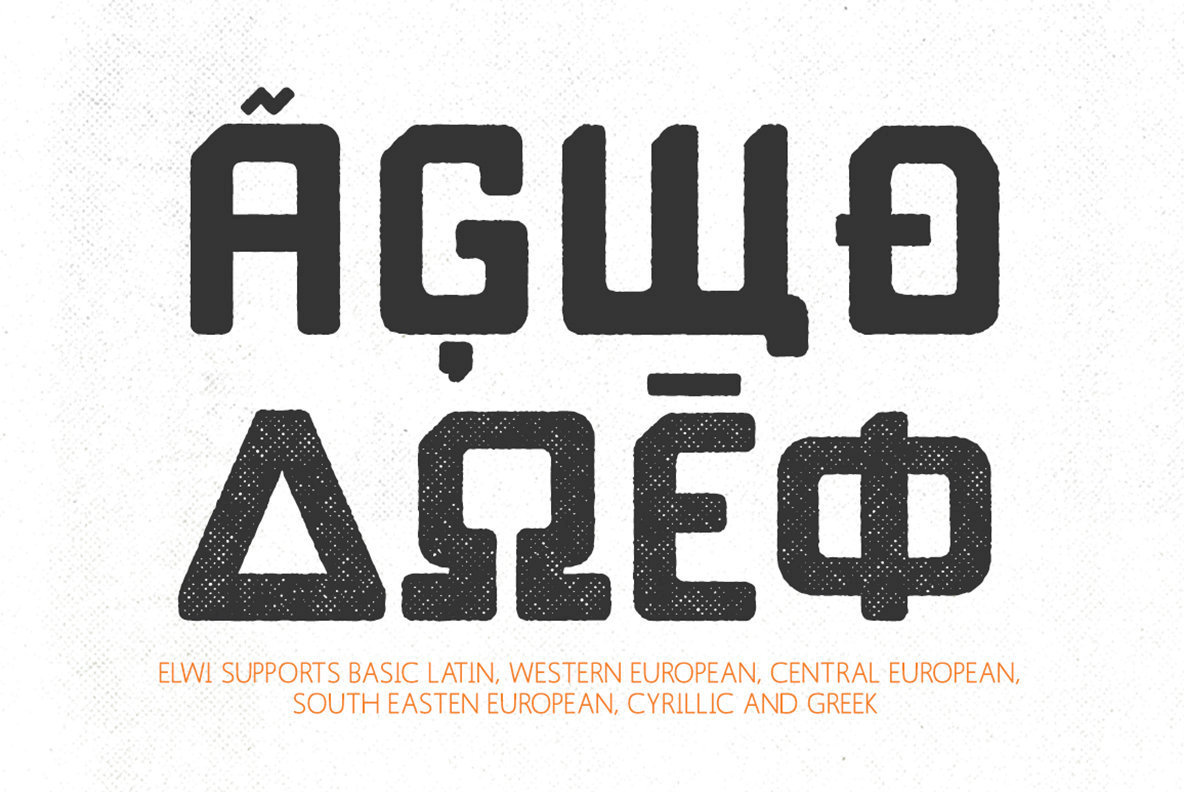
Elwi the Gentle Giant Font
Elwi The Gentle Giant is a typeface with a tall stature and a gentle demeanor. The typeface is a visual exploration of the contrast between strength and gentleness and how these contrasting themes can work together so beautifully.
This combination is the reason for its rigid geometric forms complemented by smooth edges. Elwi comes in three styles: Regular, Rough & Vintage